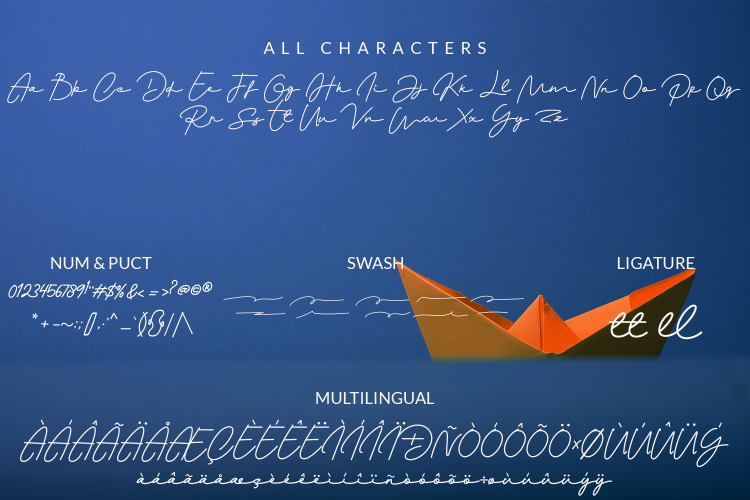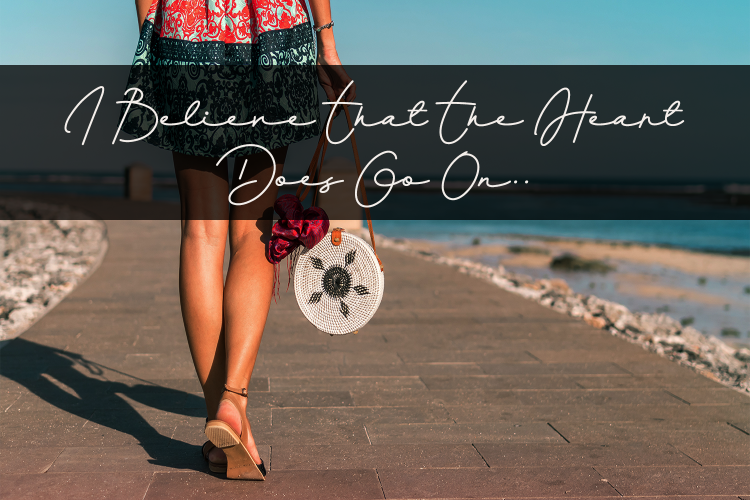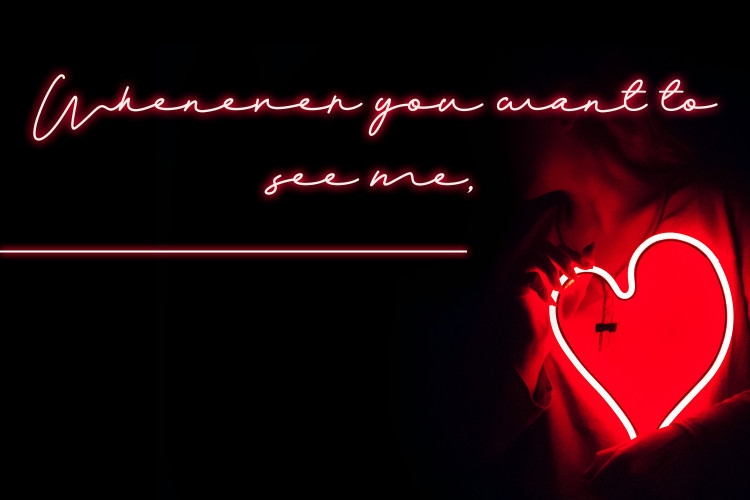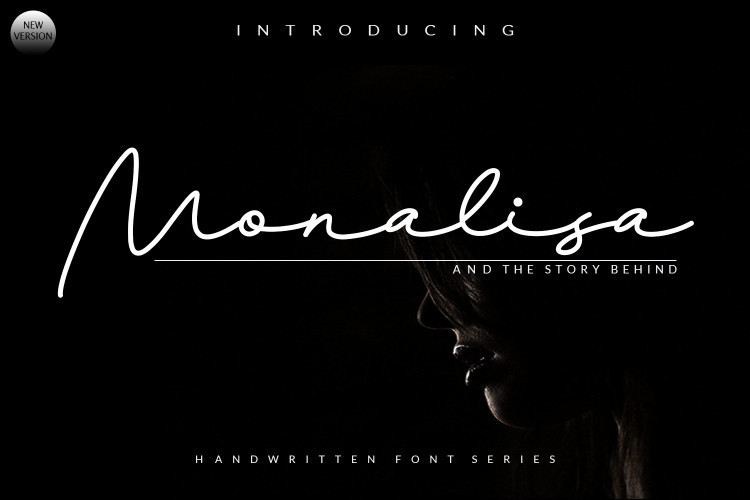
Monalisa Signature Font
This is signature handwritten. This font is for those who want to show something smooth and modern. You may use this font if you want to attract modern buyers. Introducing Monalisa Font. It’s light and casual handwritten font with a smooth baseline. It will add a charming touch to any design idea! Very suitable for greeting cards, branding materials, business cards, quotes, posters, and more!This font are perfect for wedding postcard. Or you can create perfect and unique design of your logo, blog, stationery, marketing, magazines and more 🙂